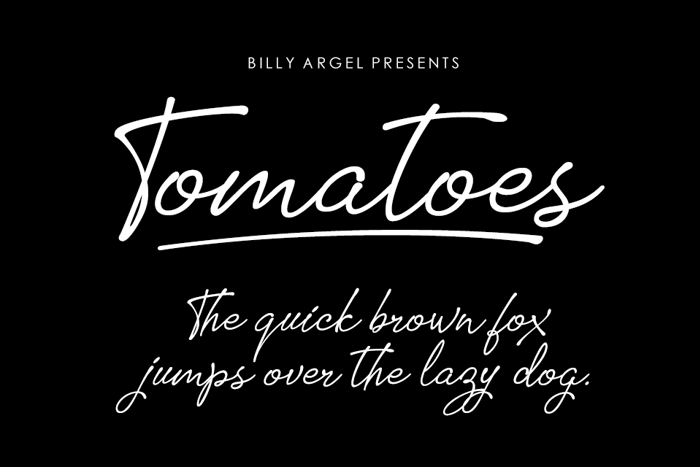
Tomatoes Font
Is it intended that a lowercase r at the beginning of a word doesn't have a left side?
Man... Update the font to include cursive Russian and more unicode... Also add PUA characters.
Would be the BEST if it had numbers and such. Still super amazing!!!